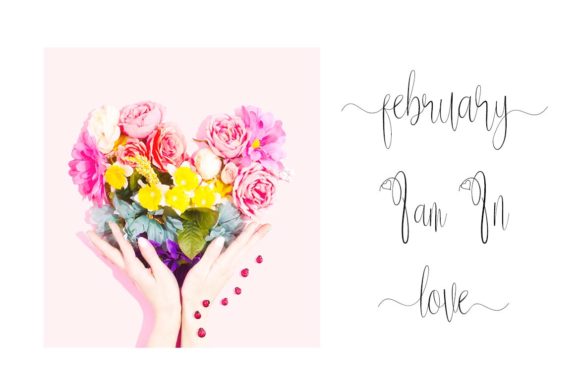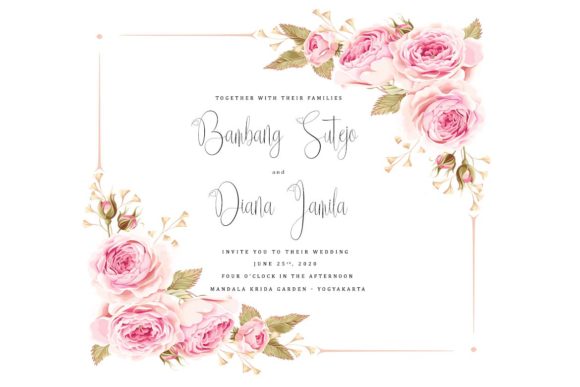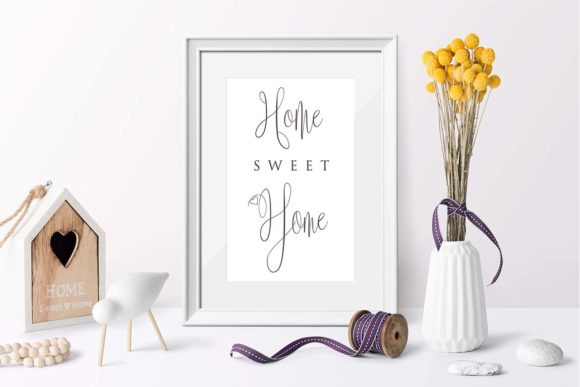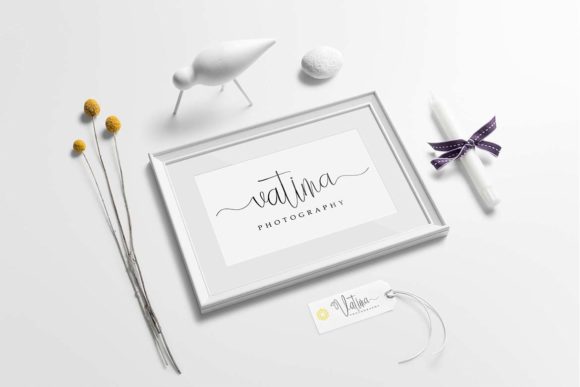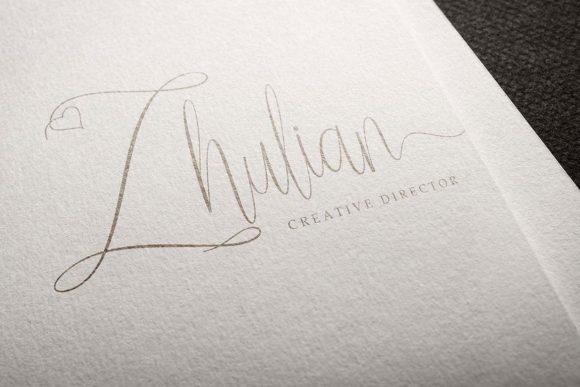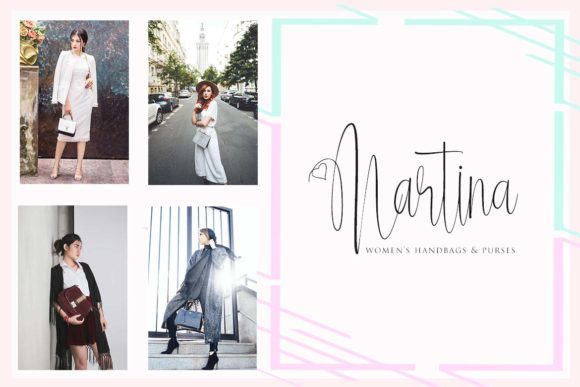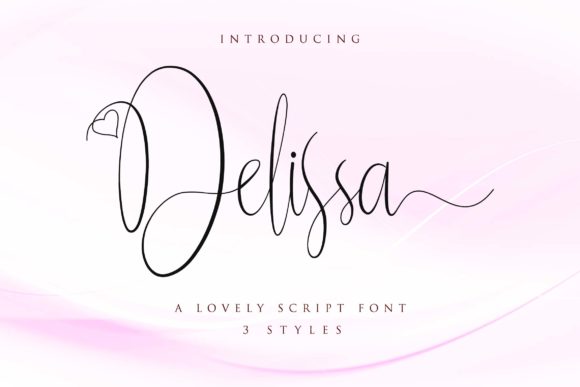
Introducing Delissa Script Font: Elevate Your Designs with Elegance and Sophistication
In the world of typography, script fonts hold a special place for their ability to add a touch of elegance and sophistication to any design. Among these, the Delissa Script Font stands out as a versatile and luxurious choice for designers and crafters looking to elevate their projects. This elegant script font is not just a typeface; it’s a tool that can transform your designs, making them more captivating and refined.
The Delissa Advantage: 3 Styles for Endless Possibilities
What sets Delissa apart is its offering of three distinct styles, each carefully crafted to blend seamlessly with the others. This versatility allows designers to experiment with various combinations, creating unique and visually stunning designs in an instant. Whether you’re working on upscale packaging, wedding stationery, website headers, or any project that demands a touch of luxury and personalization, Delissa provides the perfect solution.
Crafting Unique Designs with Ease
Delissa’s compatibility and flexibility are among its strongest assets. Designers can mix and match the three styles to achieve a customized look that aligns with their brand or theme. This capability to create multiple unique designs quickly not only saves time but also opens up a world of creative possibilities. From elegant and understated to bold and expressive, Delissa helps you achieve the desired aesthetic with ease.
Suitable for a Wide Range of Projects
The applications of Delissa Script Font are vast and varied. Here are a few areas where it truly shines:
- Upscale Packaging: Delissa adds a luxurious feel to product packaging, making it stand out on store shelves and enhancing the unboxing experience for customers.
- Wedding Stationery: Its elegant and sophisticated look makes it perfect for wedding invitations, thank you cards, and other wedding-related stationery.
- Websites: Use Delissa to create stunning website headers, banners, or even as a font for your website’s content to give it a luxurious feel.
- Graphic Projects: Whether it’s brochures, posters, or flyers, Delissa brings a level of sophistication that’s hard to achieve with standard fonts.
Enhance Your Designs with Swashes and Alternates
Understanding the importance of customization, Delissa comes with a wide range of swashes and alternates. These features allow designers to give their logos, names, or any text a custom, hand-calligraphy look without the need for extensive design skills. This capability not only saves time but also ensures that your design stands out with a personal touch.
Why Choose Delissa Script Font?
Choosing Delissa Script Font for your design projects comes with numerous benefits:
- Elegance and Sophistication: Delissa brings an unmatched level of elegance and sophistication to your designs.
- Versatility: With three styles and a wide range of swashes and alternates, Delissa offers endless creative possibilities.
- Customization: Easily customize your designs to give them a unique and personal touch.
- Time-Efficient: Create stunning designs quickly, thanks to Delissa’s versatility and range of features.
Delissa Script Font is more than just a typeface; it’s a design solution that caters to the needs of modern designers and crafters. Its elegance, versatility, and range of features make it an ideal choice for projects requiring a touch of luxury and sophistication. Whether you’re designing upscale packaging, wedding stationery, or any other project, Delissa provides the tools you need to create visually stunning and unique designs. Elevate your designs with Delissa and experience the difference it can make.